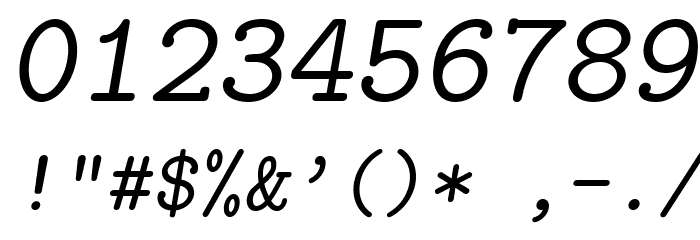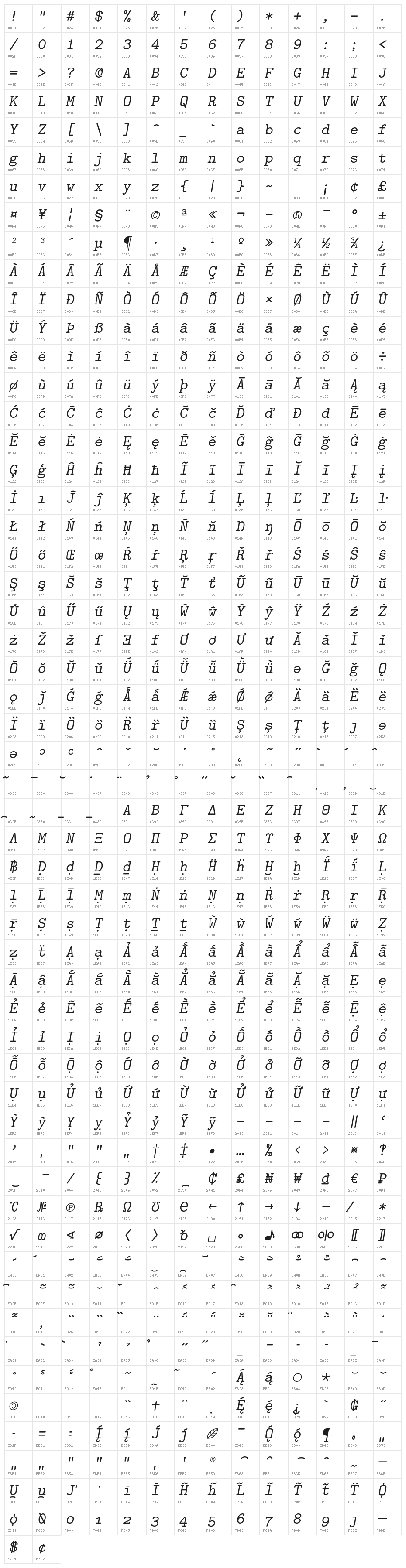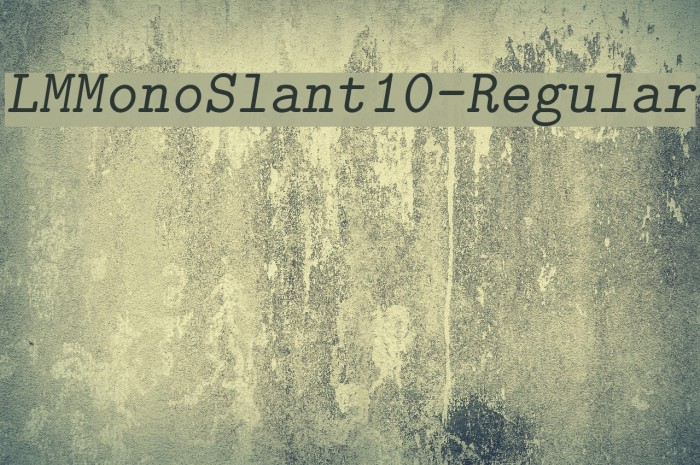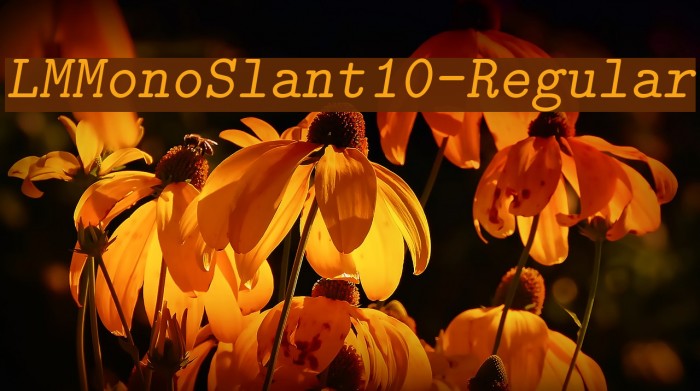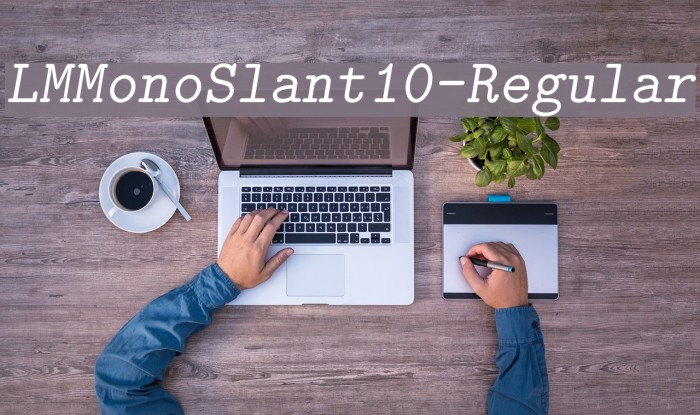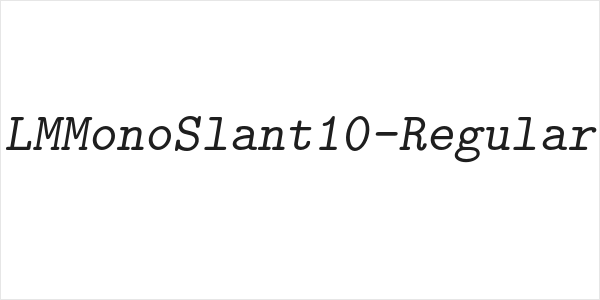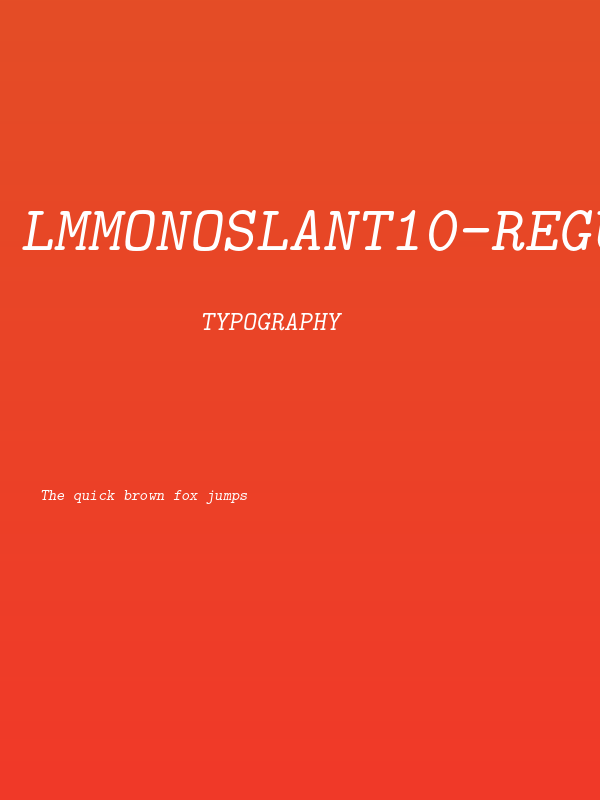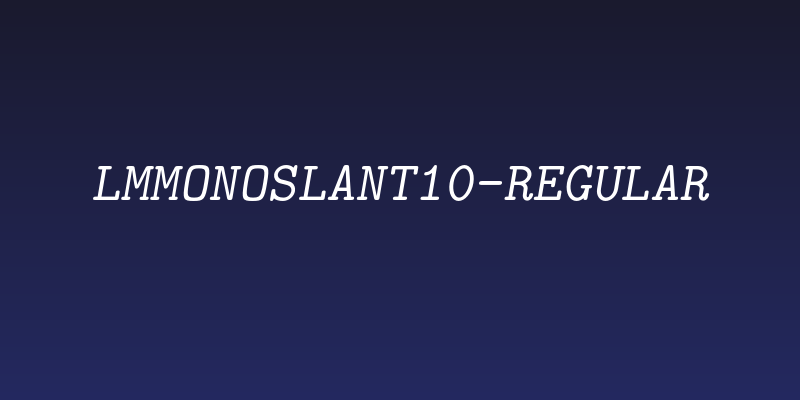
LMMonoSlant10-Regular Font
LMMonoSlant10-Regular Description
This font features a monospaced design with a distinct slant, giving it a dynamic and modern appearance. Each character maintains a consistent width, which is characteristic of monospaced fonts, making it ideal for coding and tabular data. The slant adds a touch of elegance and movement, distinguishing it from typical monospaced fonts. The strokes are uniform, providing a clean and professional look. The font includes a full set of uppercase and lowercase letters, numerals, and a variety of punctuation marks and special characters, ensuring versatility in usage.
| Use Case | Coding, Technical documentation, Tabular data |
| Proposed Projects | Ideal for coding environments, technical documentation, and any project requiring a clean, uniform appearance with a touch of elegance. |